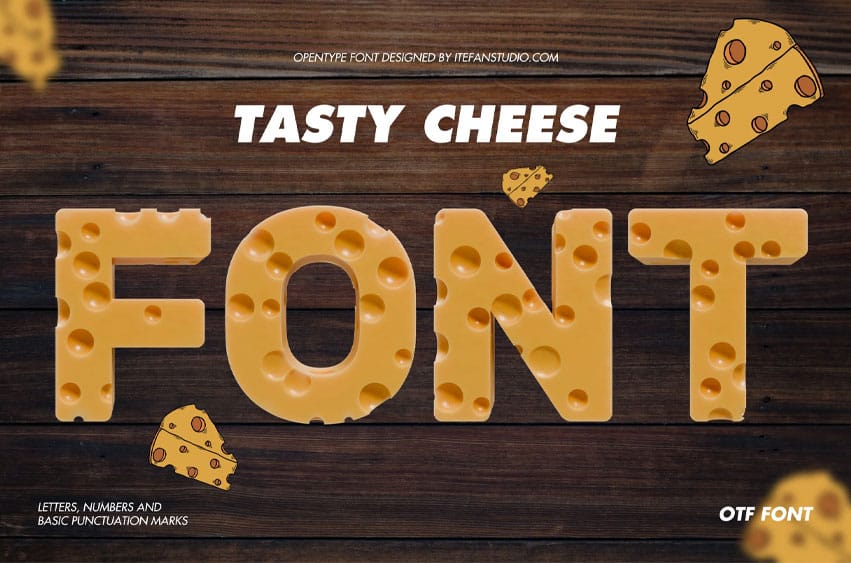
Tasty Cheese Font Say cheese with this irresistibly cheesy font, where each character is crafted to look like a tempting slice of tasty cheese—full of authentic holes and glistening with a smooth, glossy finish. Perfect for serving up a slice of whimsy in food-themed graphics, tasty branding, mouth-watering packaging, flavorful advertising, and playful typography projects.